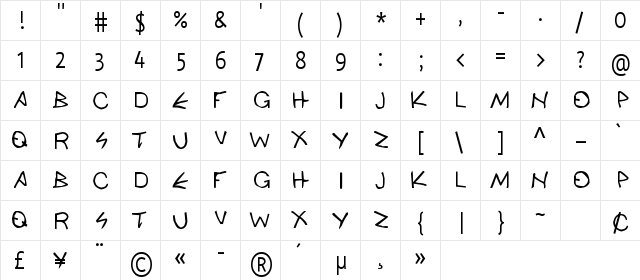
ancientHellenic Regular
Design Context for ancientHellenic Typeface
ancientHellenic is a composed and adaptable typeface that performs quietly and consistently across a wide range of design contexts.